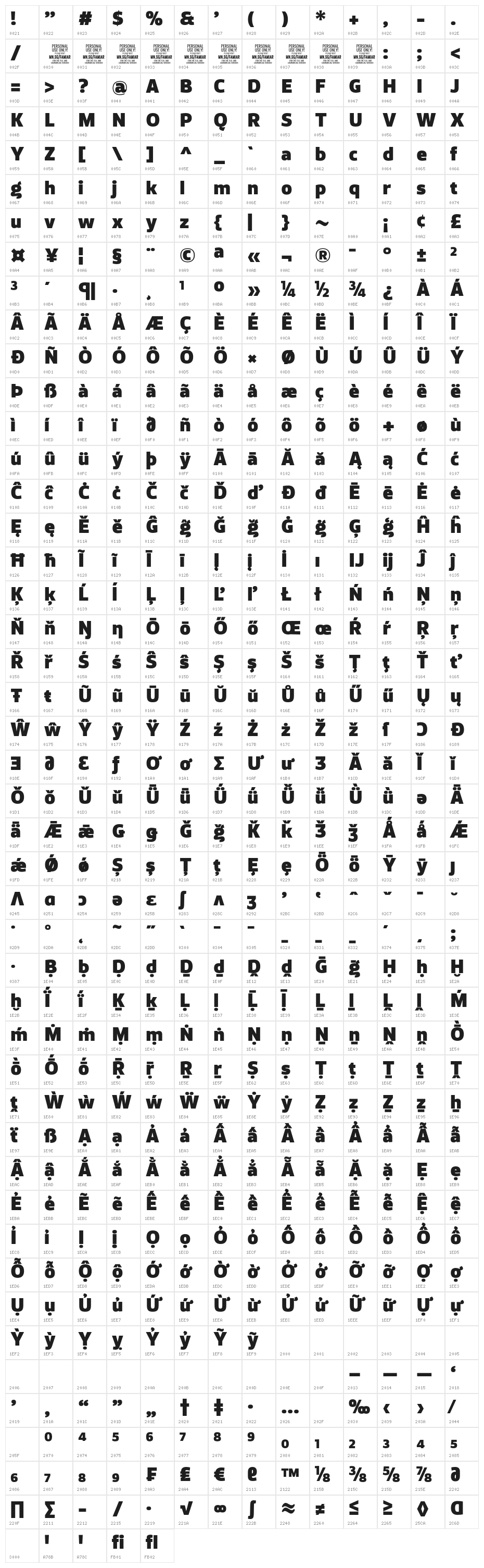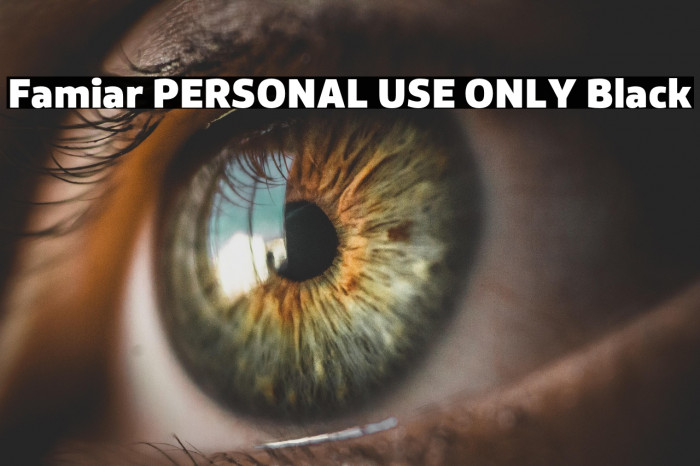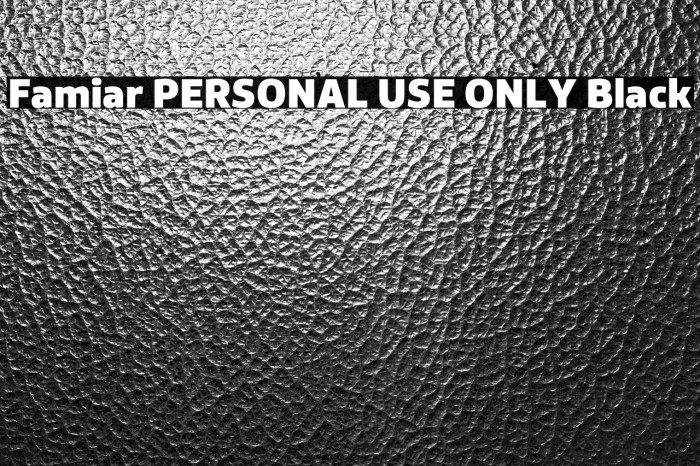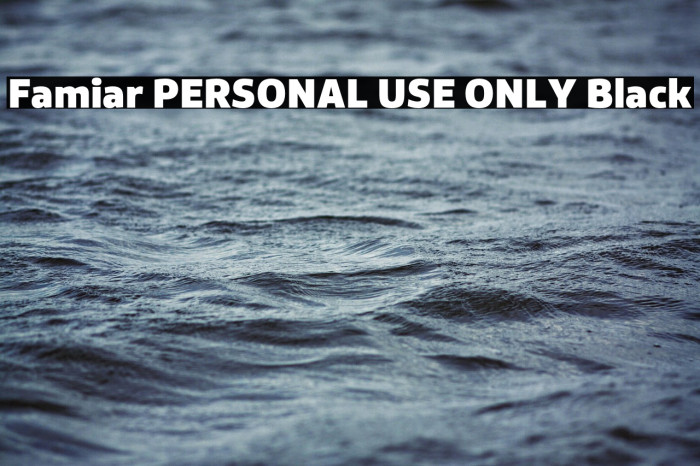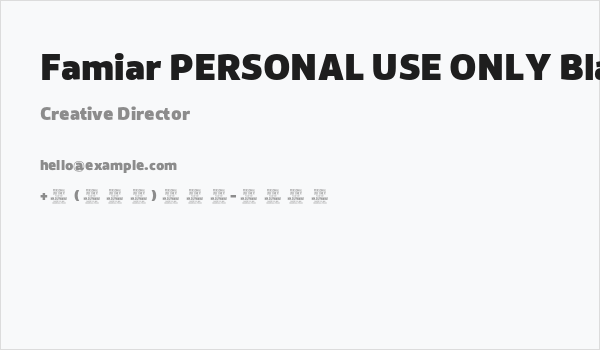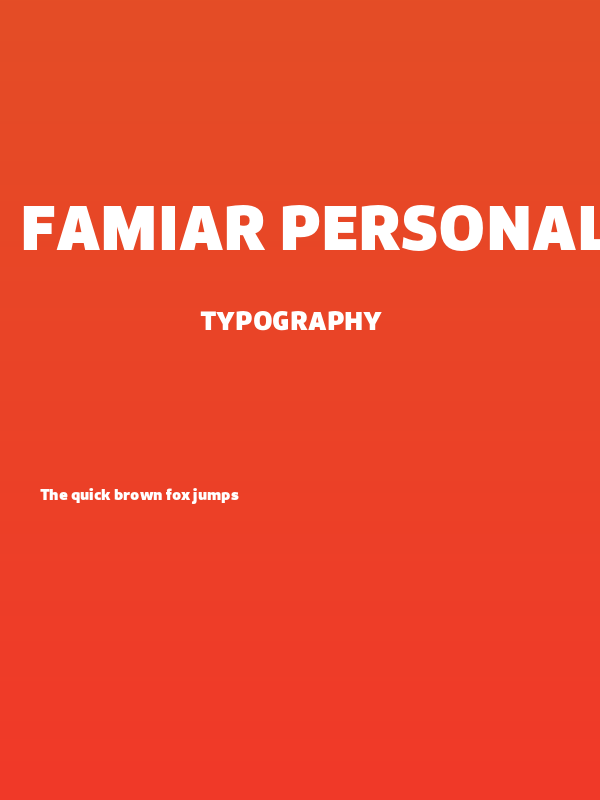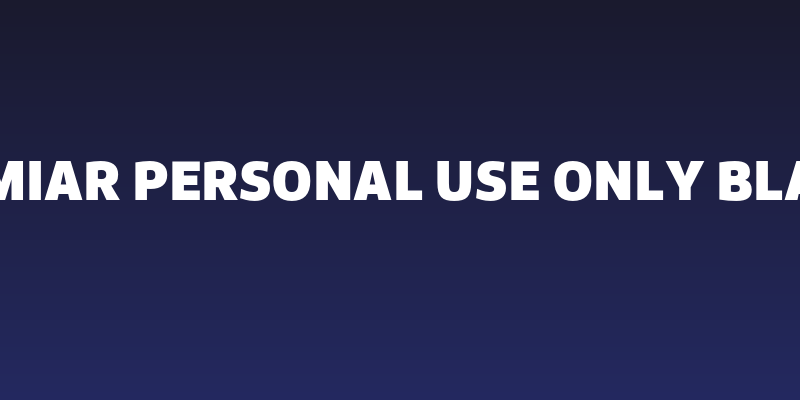
Famiar PERSONAL USE ONLY Black Font
Famiar PERSONAL USE ONLY Black Description
This bold and impactful font features strong, thick strokes that create a commanding presence. The uppercase and lowercase letters are designed with a consistent weight, providing a uniform appearance across all characters. The font's geometric shapes and clean lines contribute to its modern and professional look. It includes a full set of uppercase and lowercase letters, numerals, and a variety of special characters, making it versatile for different design needs. The boldness of the characters ensures excellent readability, even at smaller sizes, while maintaining a striking visual appeal.
| Proposed Projects | Ideal for branding, headlines, posters, and advertising materials where a strong visual impact is desired. |